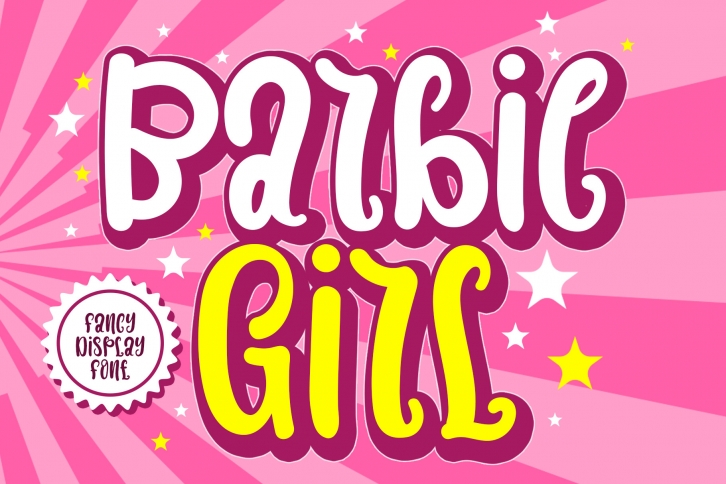
Barbie Girl is a simple, friendly and cute handwritten font. This adaptable font will look great on a variety of design ideas. It will add a fun and adaptable touch to each of your projects!